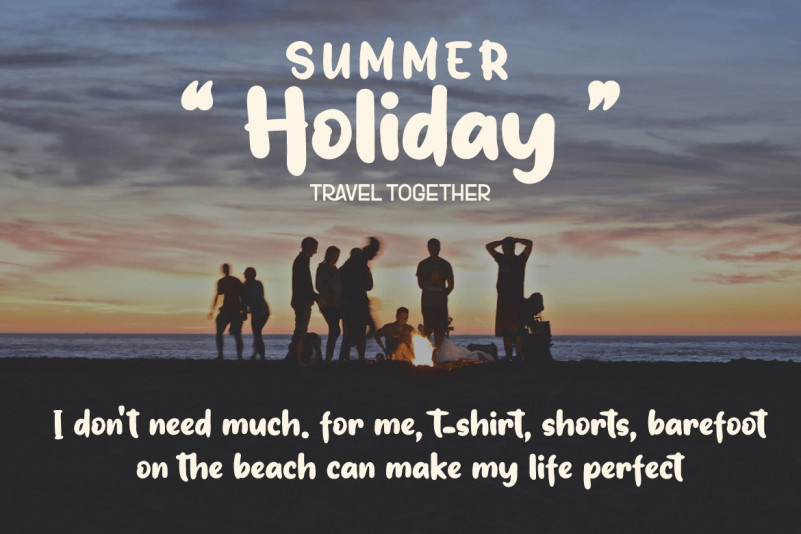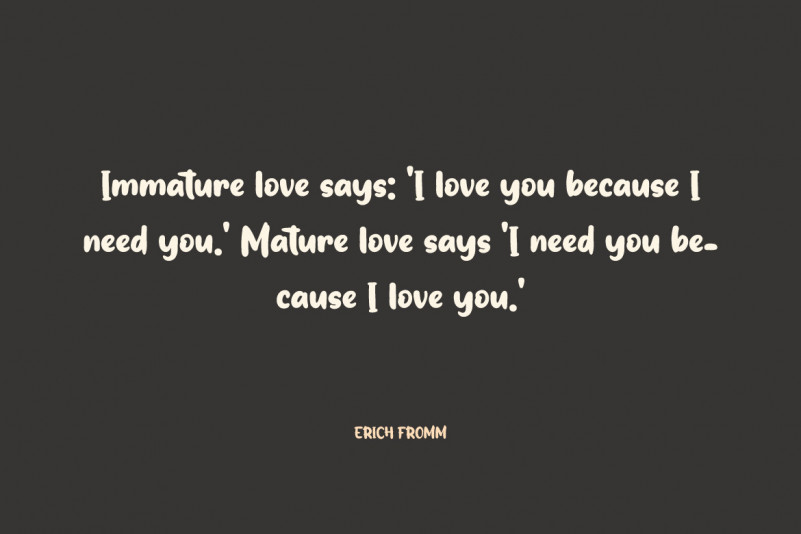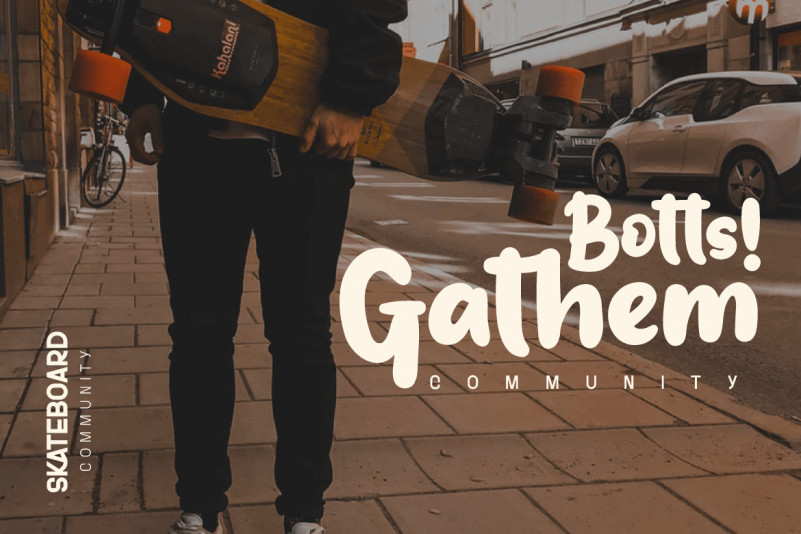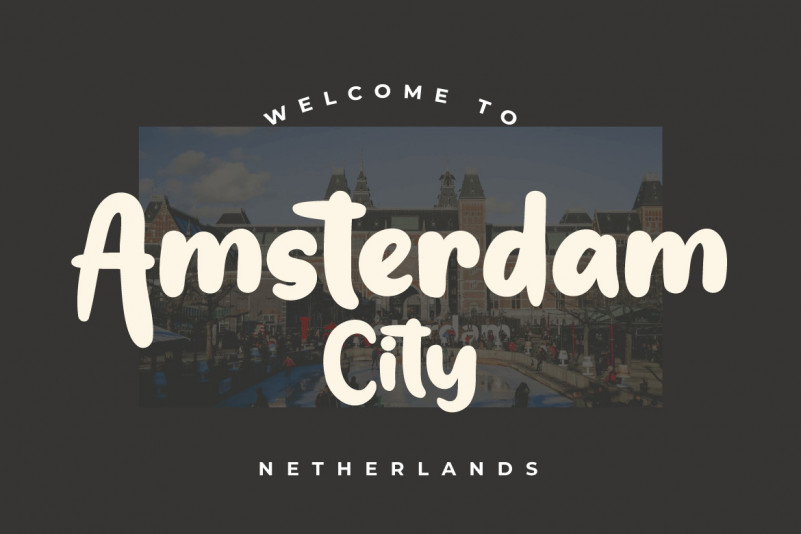
Outedis Font
Outedis Display Font
This is a unique, cute, and charming handwritten font. you can use it for designs with various kinds of creations that require a touch of beauty, this font is the right choice for your elegant project.
This font is designed with a natural touch of handwriting refined to create portions and compositions that suit your needs. So this font is perfect for crafts, kids writing, adventure posters, banner titles, wedding invitations, product packaging logos, quotes, social media page covers, furniture banner titles, book covers, and more.